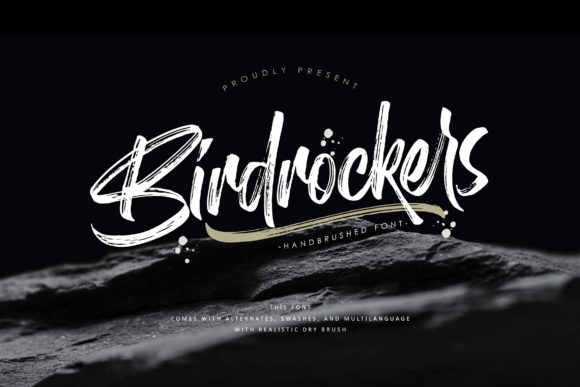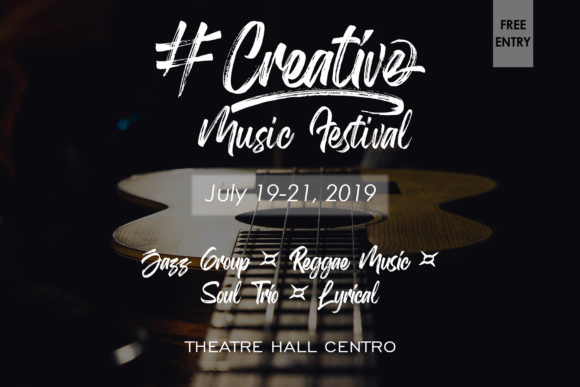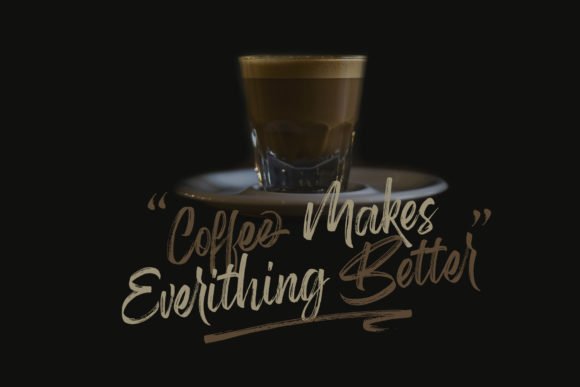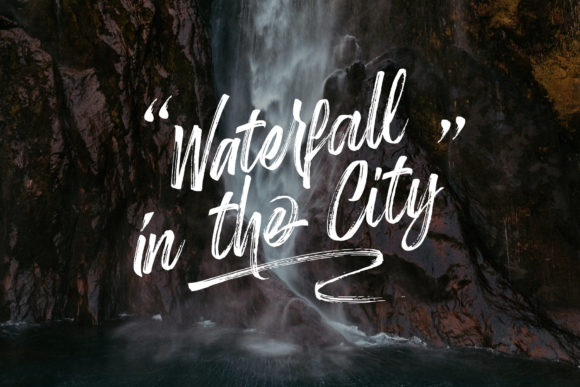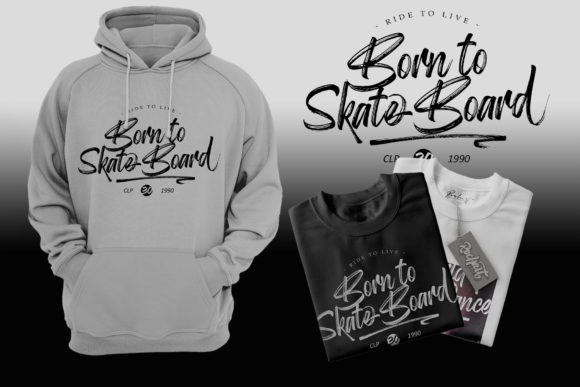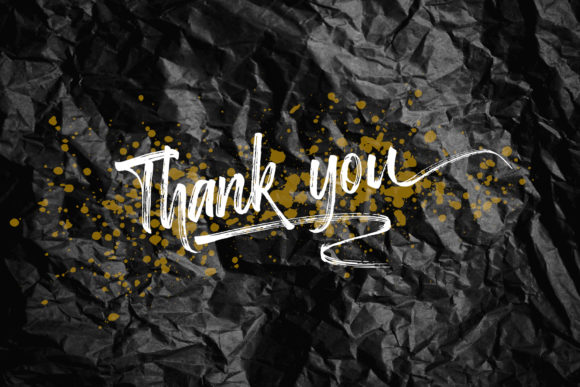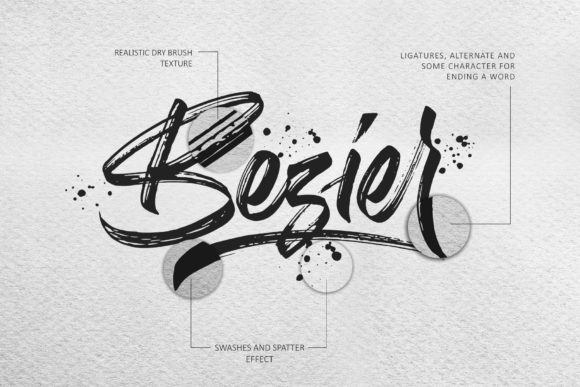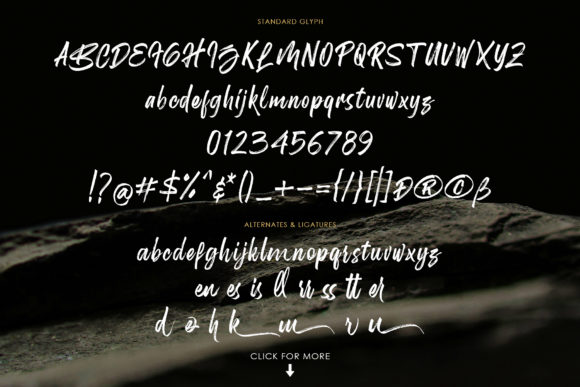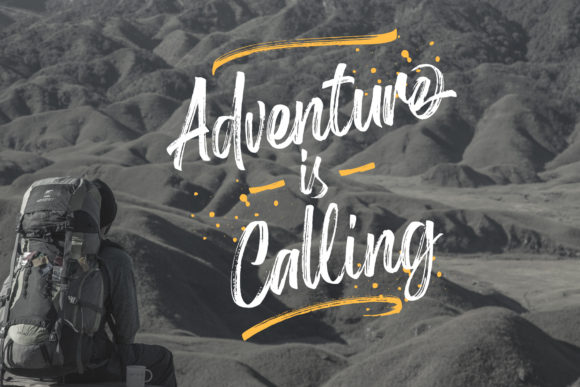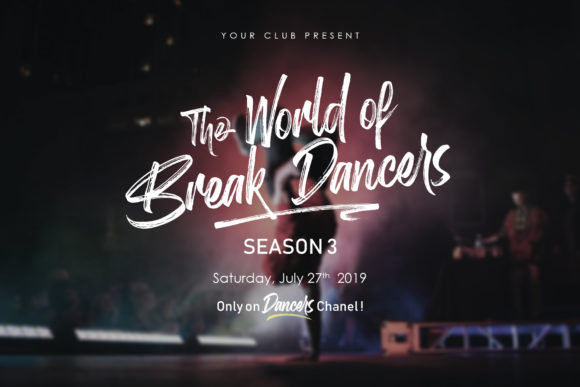
HomeScript FontsBirdrockers Font Script Fonts Birdrockers Font FacebookXPinterestWhatsApp Birdrockers Font Poster 2 Birdrockers Font Poster 3 Birdrockers Font Poster 4 Birdrockers Font Poster 5 Birdrockers Font Poster 6 Birdrockers Font Poster 7 Birdrockers Font Poster 8 Birdrockers Font Poster 9 Birdrockers Font Poster 10 Birdrockers Font Poster 11 Birdrockers Font Poster 12 Birdrockers Font Poster 13 Birdrockers Font Poster 14 About Birdrockers Font Birdrockers is a contemporary brush font with with a bold twist. Get inspired by its urban vibe. DOWNLOAD ON CREATIVE FABRICAThis font is sold and delivered by Creative Fabrica. Font Canyon may earn a commission if you buy through this link. People also explored De Awesome Font Rosesmont Font HT Neon Elektroblooming Font Scarlet Heart Font Nusamatis Font The Calligraphy Font Hellomy Font Endearing Sans Font 710 0 TagsBirdrockers Font Previous articleQuilty FontNext articleHand Fast Font LEAVE A REPLY Cancel reply Comment: Please enter your comment! Name:* Please enter your name here Email:* You have entered an incorrect email address! Please enter your email address here Website: Save my name, email, and website in this browser for the next time I comment. Personal Use Free Cuttie Personal Use Free Read more about this font Nulshock Bold Personal Use Free Read more about this font Nugo Sans Personal Use Free Read more about this font Squealer Personal Use Free Read more about this font BLOG Transform Your Website: Elevate Your Typography with 7 Best Web Font Generators Are you ready to transform your website's typography from ordinary to extraordinary? Great! Today, we're diving into the world of web font generators, which... Exploring Font Trends Free vs Paid Fonts: Why Investing in Premium Fonts Is Worth It How to Cut Any Font on Cricut: Convert a Font to SVG (Free)